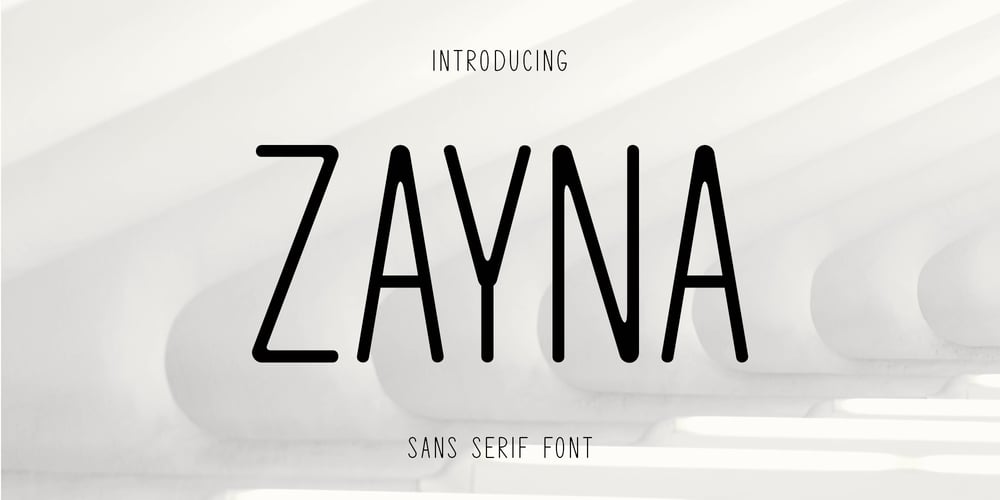
Zayna
Zayna font
Zayna Font Family was designed by Fidan Aslanova and published by Fidan Fonts. Zayna contains 2 styles and family package options. Zayna is an uppercase sans serif font. The font works perfectly for headlines, posters, pull quotes, wordmark logos and many more. It includes full set of uppercase basic characters, multilingual symbols, numerals, punctuation (check the previews in order to see them all).Latin-based Language Support (You can check your language typing characters in text box below).2 styles: plain, oblique.Happy creating!